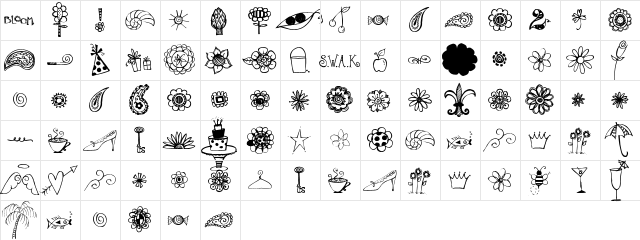
Pea Stacy's Doodles Regular
Design Context for Pea Stacy's Doodles Typeface
Pea Stacy's Doodles is a composed and adaptable typeface that performs quietly and consistently across a wide range of design contexts.